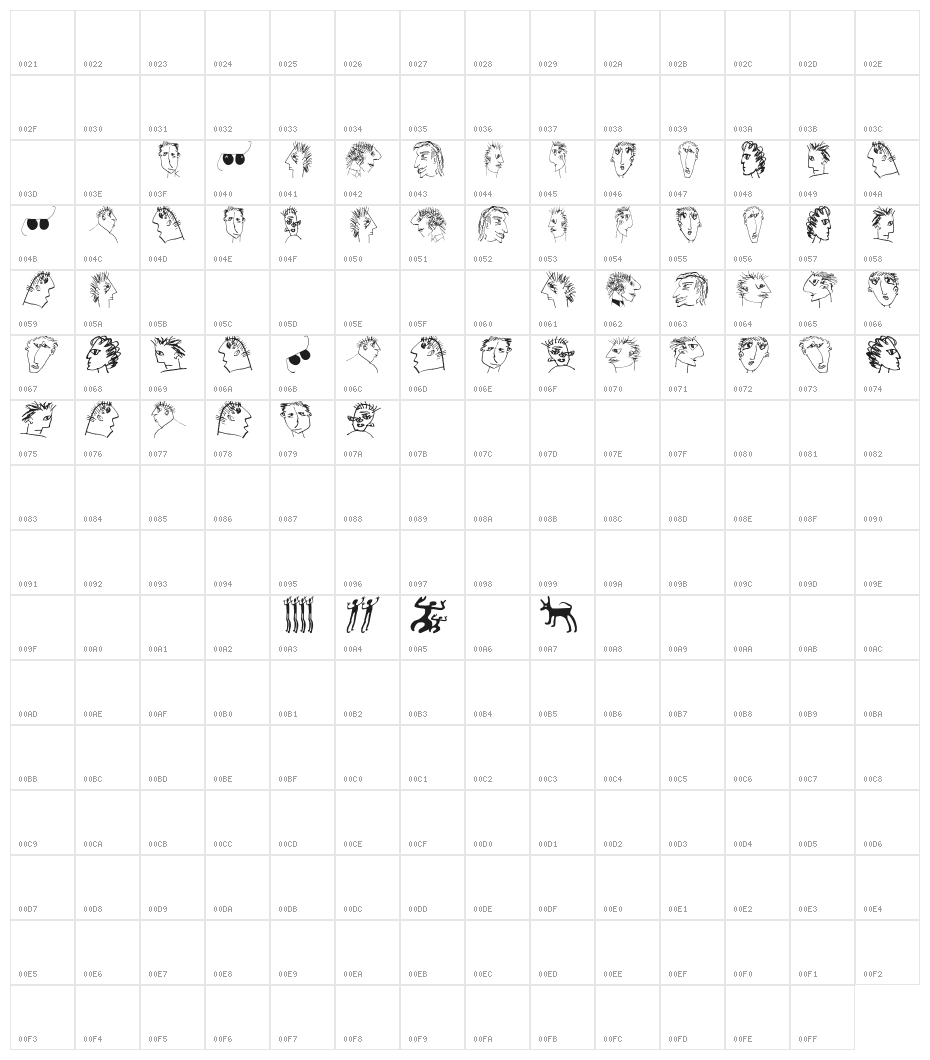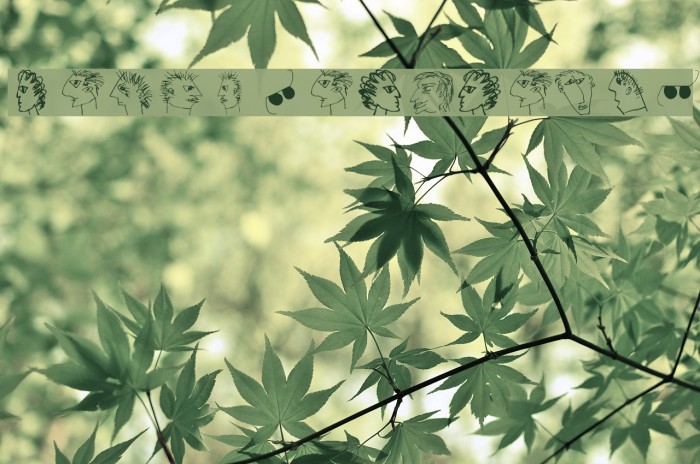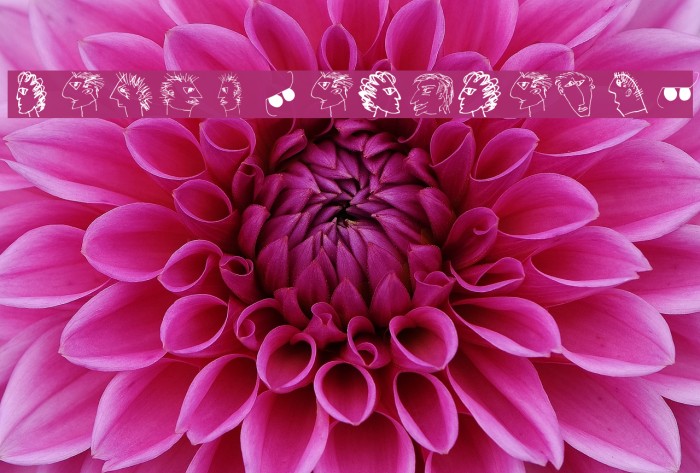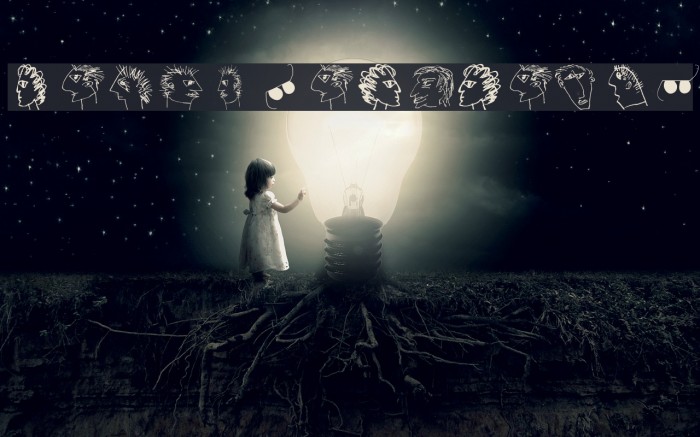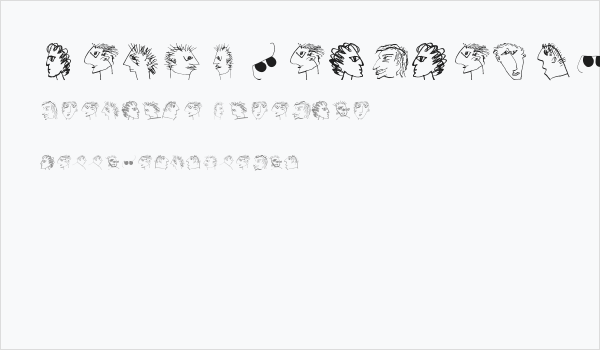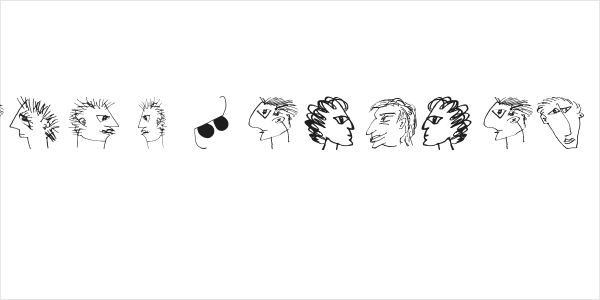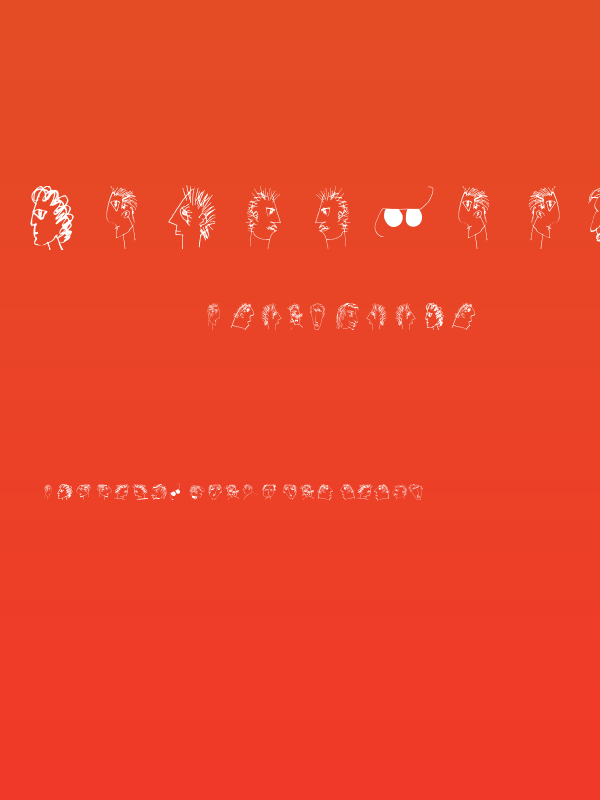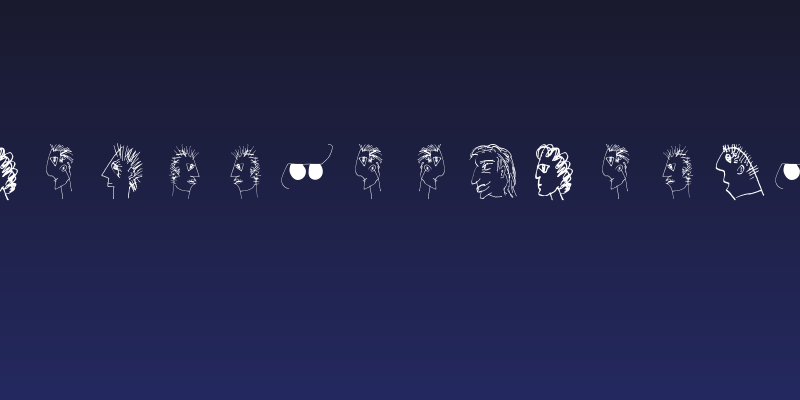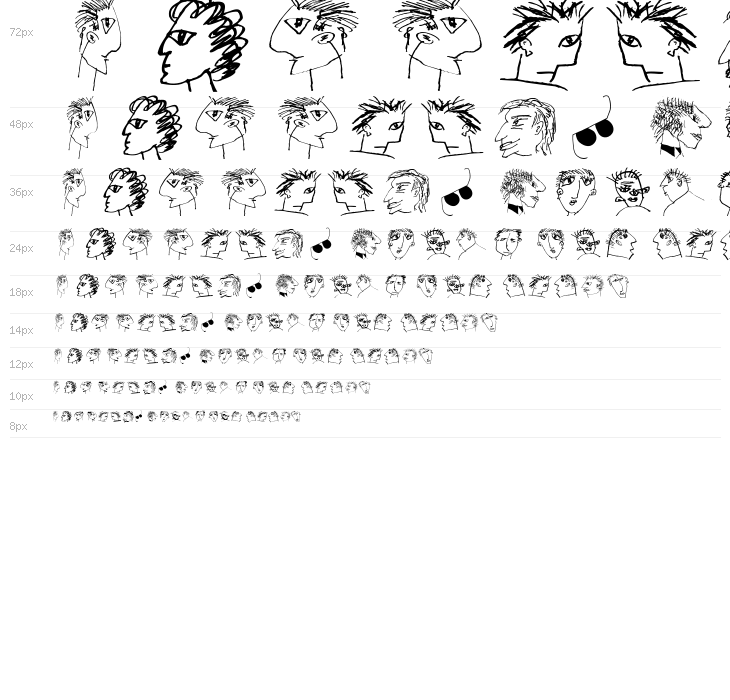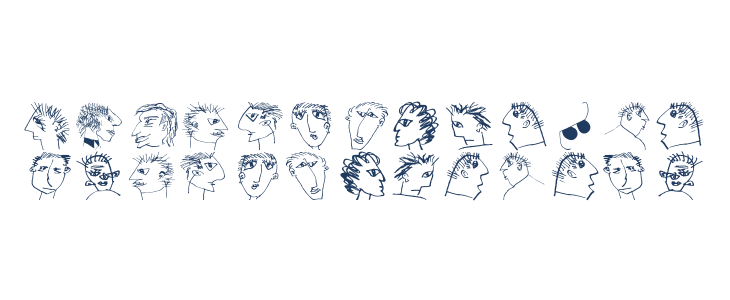
HeadSketchesMK Font
HeadSketchesMK Description
A highly decorative and whimsical font composed of hand-drawn sketch-style heads in profile, each character uniquely illustrated with expressive facial features and varied hairstyles, giving a playful and artistic appearance.
| Overall Style | Decorative, Artistic, Whimsical |
| Use Case | Logos, Headlines, Posters, Art projects |
| Proposed Projects | Children's books, comic titles, creative posters, art event branding, quirky invitations. |